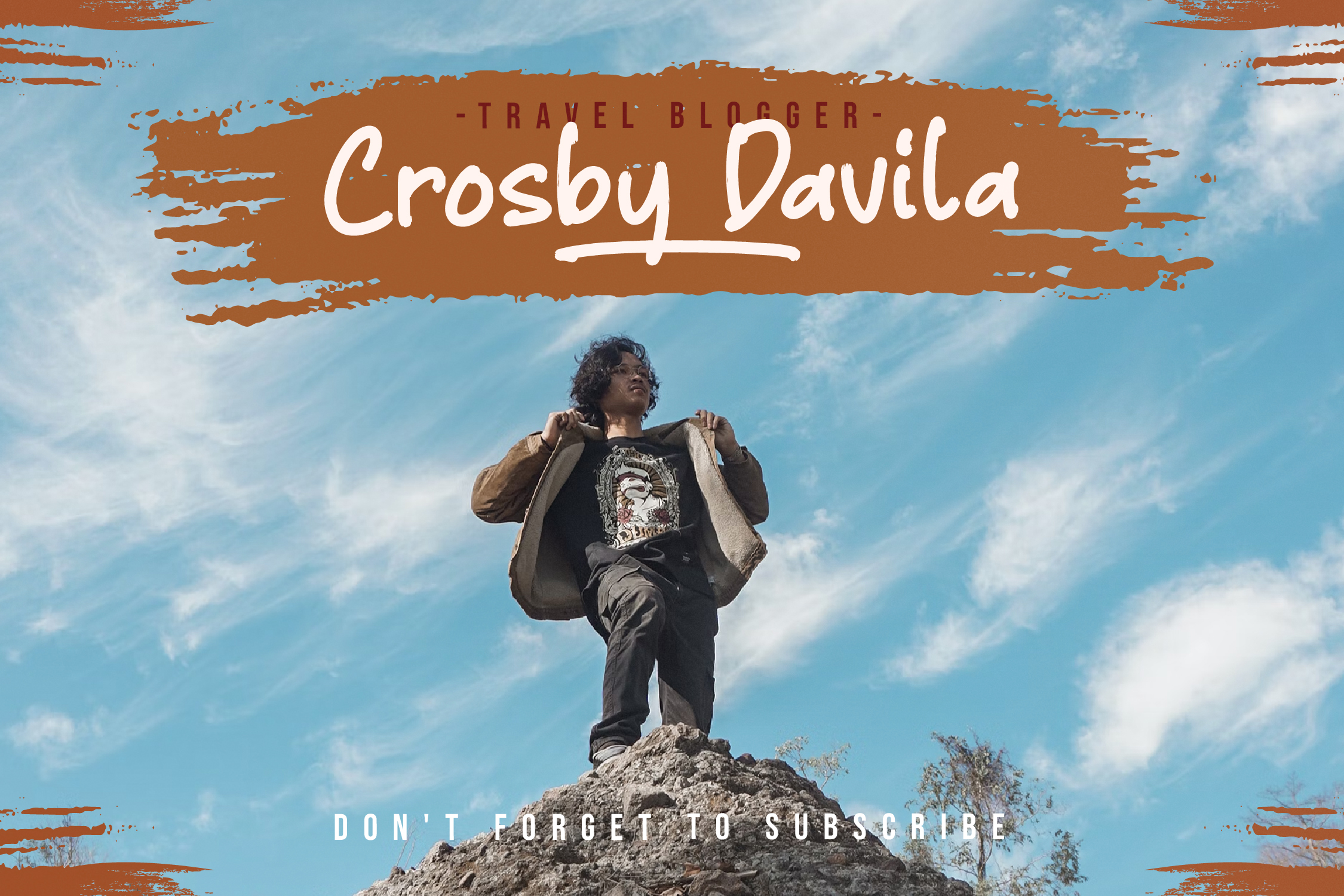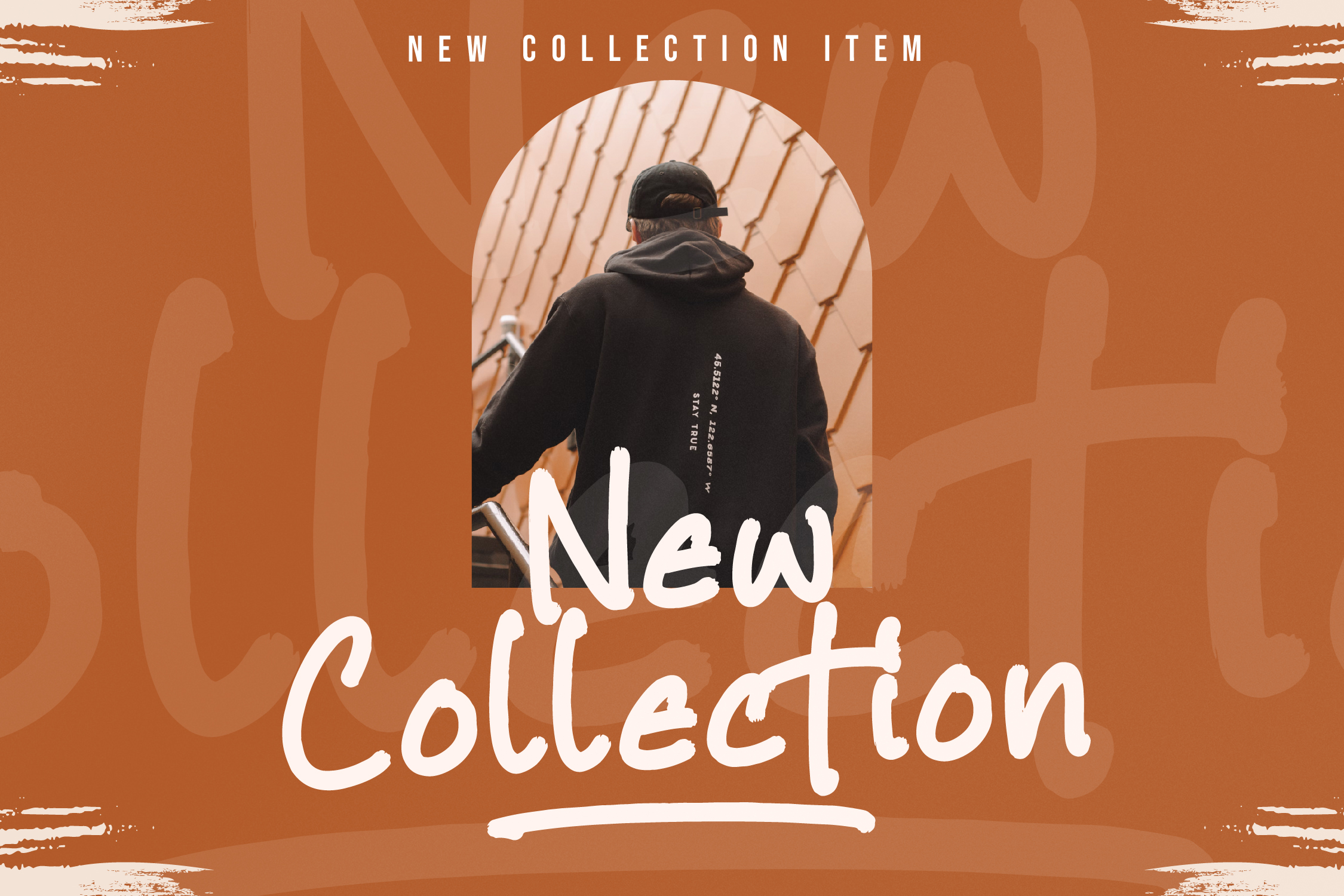
Mattew Font
Mattew Brush Font
It’s a Handwritten Brush Font, suitable for any projects such as: logos, branding projects, homeware designs, product packaging, mugs, quotes, posters, shopping bags, t-shirts, book covers, name card, invitation cards, greeting cards, label, photography, watermark, special events, and all your other lovely projects that need a beautiful script taste.